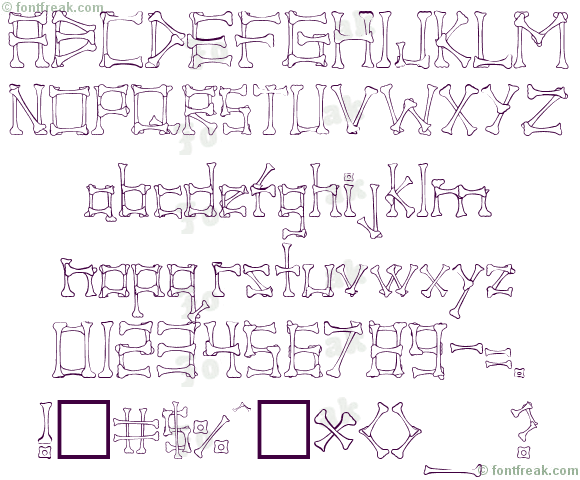
Pirate Regular
About Pirate Regular
Pirate Regular is a distinctive display font created by Aaron Beck, known for its playful and adventurous aesthetic. This font falls into the decorative category, making it an eye-catching choice for various design projects. Its visual characteristics include a unique, irregular stroke weight that mimics the look of hand-drawn letters, giving it a whimsical, pirate-themed flair. The letterforms are adorned with playful, bone-like structures that add a sense of fun and creativity, while the spacing is relatively open, allowing for easy readability despite its decorative nature.
Pirate Regular is well-suited for a variety of creative uses. It can be effectively employed in designing spirited event invitations, particularly for pirate-themed parties or children’s events, where it can set a lighthearted tone. Additionally, it works wonderfully for movie posters, especially those that aim to capture the adventurous spirit of swashbuckling tales. Restaurant menus, particularly for themed dining experiences, can benefit from this font, as it adds an element of playfulness that draws attention. Moreover, small business owners looking to create unique branding materials will find this font a perfect fit for packaging or promotional items that need a touch of creativity.
Target audiences for this font include graphic designers, small business owners, and content creators who wish to add a distinctive flair to their projects. The charm of the Pirate Regular font free download lies in its ability to evoke a sense of adventure and imagination, making it a standout choice for anyone aiming to capture attention and convey a fun, spirited message in their designs. With its unique visual style and versatility, Pirate Regular is sure to inspire creativity in any project.